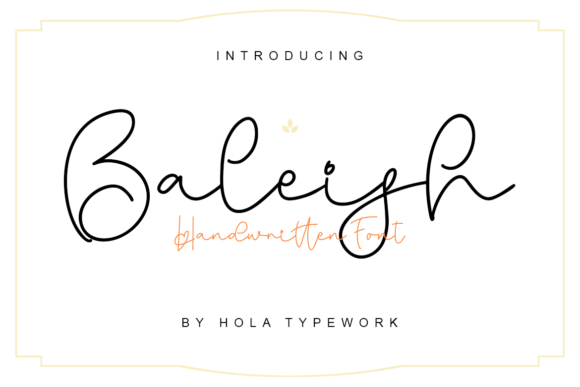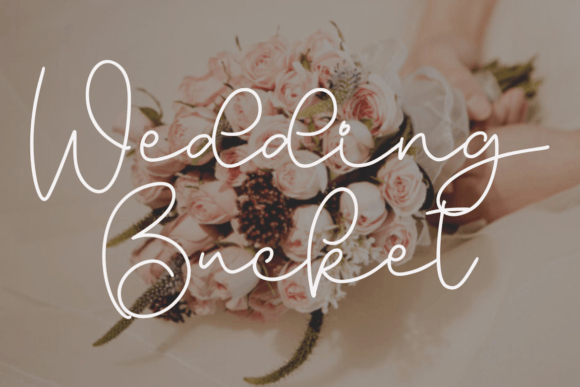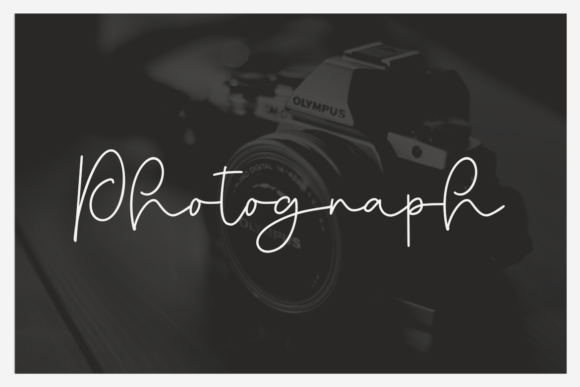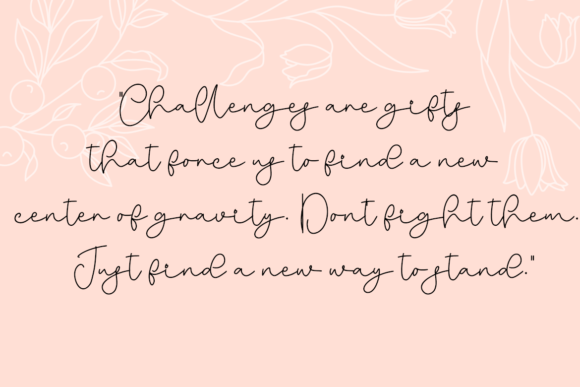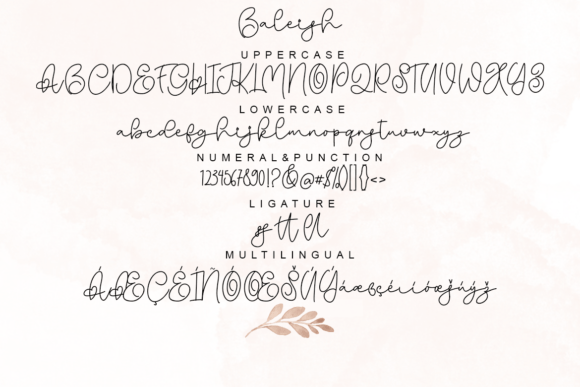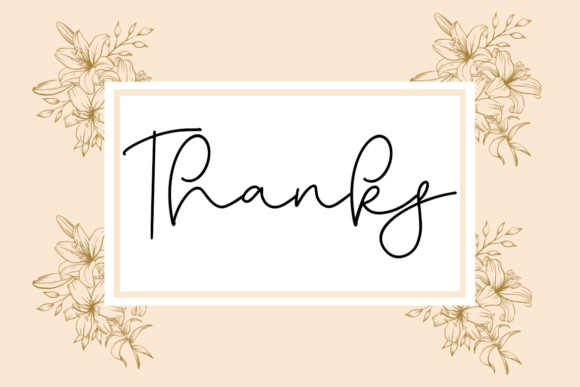
Baleish Font
About Baleish Font
“Baleish” is a monoline font that effortlessly combines smoothness with a beautiful flowing character. Its classy, elegant, and modern look makes it a versatile choice for a wide range of design applications. Here’s a closer look at the distinctive features that set “Baleish” apart:
1. **Monoline Elegance:** The consistent thickness of the lines in “Baleish” creates a monoline style, adding a touch of elegance to the font. This design choice ensures a balanced and refined appearance, making it suitable for various design projects.
2. **Smooth Flow:** The flowing character of “Baleish” contributes to its graceful and sophisticated aesthetic. The smooth curves and connected strokes enhance readability and visual appeal, making it ideal for conveying a sense of modernity and style.
3. **Classy and Modern:** “Baleish” strikes a balance between classic and modern design elements. Its timeless appeal, combined with a contemporary touch, makes it suitable for a broad spectrum of projects, from traditional to cutting-edge.
4. **Versatility:** The versatility of “Baleish” shines through in its ability to adapt to different design needs. Whether you’re creating logos, branding materials, invitations, stationery, wedding designs, or social media posts, this font adds a touch of sophistication to your projects.
5. **Professional Look:** The classy and modern design of “Baleish” lends itself well to professional settings. It can elevate the visual identity of businesses, creating a polished and professional look in logos, business cards, and other branding materials.
6. **Readability:** While “Baleish” exudes style, it also prioritizes readability. This makes it a practical choice for a variety of applications, ensuring that your message is communicated clearly and effectively.
7. **Broad Applicability:** “Baleish” is a versatile font that adapts to different themes and design contexts. Its broad applicability extends from formal documents to social media graphics, providing consistency across various platforms.
8. **Timeless Appeal:** The combination of elegance and modernity gives “Baleish” a timeless quality. It can be used in designs that aim to transcend trends, maintaining relevance and sophistication over time.
In conclusion, “Baleish” is not just a font; it’s a design asset that brings elegance, modernity, and versatility to your creative projects. Whether you’re crafting a brand identity, designing invitations, or creating social media content, “Baleish” adds a touch of refinement to your visual storytelling.